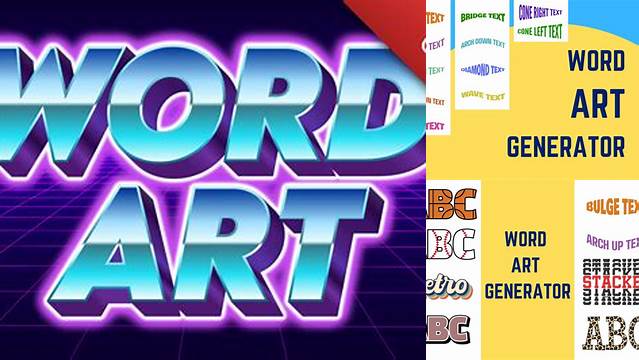
Free Word Art Font Generator: Create Stunning Text!
Creating eye-catching text has never been easier, thanks to the rise of free word art font generators. Whether you're designing social media graphics, sprucing up a presentation, or just want to add some flair to your documents, these tools can help you transform ordinary words into extraordinary visual elements. Let's dive into the world of word art font generators and explore how you can use them to create stunning text for free!
1. What is a Word Art Font Generator?
A word art font generator is a software or online tool that allows you to create stylized text with various fonts, colors, effects, and layouts. Unlike traditional text editors, these generators offer a wide range of customization options, enabling you to design unique and visually appealing text graphics. Think of it as a digital playground where you can experiment with typography and unleash your creativity.
The beauty of these generators lies in their simplicity. Most tools offer a user-friendly interface where you can type in your desired text, choose from a selection of fonts and styles, and customize the colors, shadows, and other effects. Once you're satisfied with your design, you can typically download it as an image file (e.g., PNG, JPG) for use in your projects.
These tools are particularly useful for individuals and businesses who want to create professional-looking graphics without having to invest in expensive design software or hire a graphic designer. With a free word art font generator, you can quickly and easily produce eye-catching text for a variety of applications, from social media posts to marketing materials.
2. Benefits of Using a Free Word Art Font Generator
Using a free word art font generator comes with a plethora of benefits, especially if you're on a tight budget or simply need to create text graphics quickly. Here are some of the key advantages:
- Cost-effective: The most obvious benefit is that these tools are free to use. You don't have to pay for a subscription or purchase expensive software to create stunning word art.
- User-friendly: Most generators are designed with simplicity in mind, featuring an intuitive interface that's easy to navigate, even for beginners.
- Time-saving: Creating word art manually can be a time-consuming process. With a generator, you can whip up a design in minutes.
- Versatile: These tools offer a wide range of customization options, allowing you to create text graphics for various purposes, from social media to presentations.
- No design skills required: You don't need to be a professional designer to use a word art font generator. The tools do the heavy lifting for you, making it easy to create professional-looking graphics.
3. How to Choose the Right Word Art Font Generator
With so many free word art font generators available, it can be challenging to choose the right one for your needs. Here are some factors to consider:
- Font selection: Look for a generator that offers a wide variety of fonts to choose from. The more options you have, the more creative you can be.
- Customization options: Consider the customization options offered by the generator. Can you change the colors, shadows, and other effects? Can you adjust the layout and spacing of the text?
- Ease of use: Choose a generator that's easy to use and navigate. The interface should be intuitive and straightforward.
- Output quality: Check the quality of the output images. Are they high-resolution and suitable for your intended use?
- Supported file formats: Make sure the generator supports the file formats you need (e.g., PNG, JPG).
4. Top Free Word Art Font Generators
Ready to start creating some stunning word art? Here are some of the top free word art font generators available online:
- Cool Text: A classic generator with a wide range of fonts and styles.
- TextGiraffe: Offers a variety of text effects and customization options.
- FlamingText: Known for its realistic fire and ice effects.
- Online Text Effects: Provides a variety of unique text effects, including 3D and cartoon styles.
- PhotoFunia: While not strictly a word art font generator, PhotoFunia offers a range of text-based effects and templates.
5. Exploring Different Font Styles
The font you choose can dramatically impact the overall look and feel of your word art. Experiment with different font styles to find the perfect match for your project.
- Serif fonts: Serif fonts have small decorative strokes at the end of each letter. They're often used for formal or traditional designs.
- Sans-serif fonts: Sans-serif fonts lack the decorative strokes, giving them a cleaner and more modern look.
- Script fonts: Script fonts resemble handwriting and can add a touch of elegance or whimsy to your designs.
- Display fonts: Display fonts are designed to be eye-catching and are often used for headlines or titles.
To make the most of a word art font generator, it's essential to understand design principles such as typography, color schemes, and visual hierarchy.
In conclusion, free word art font generators are powerful tools that can help you create stunning text graphics without breaking the bank. By considering your needs, exploring different options, and mastering the art of typography and design, you can use these tools to create visuals that capture attention and communicate your message effectively. So go ahead, unleash your creativity, and start creating some amazing word art today!